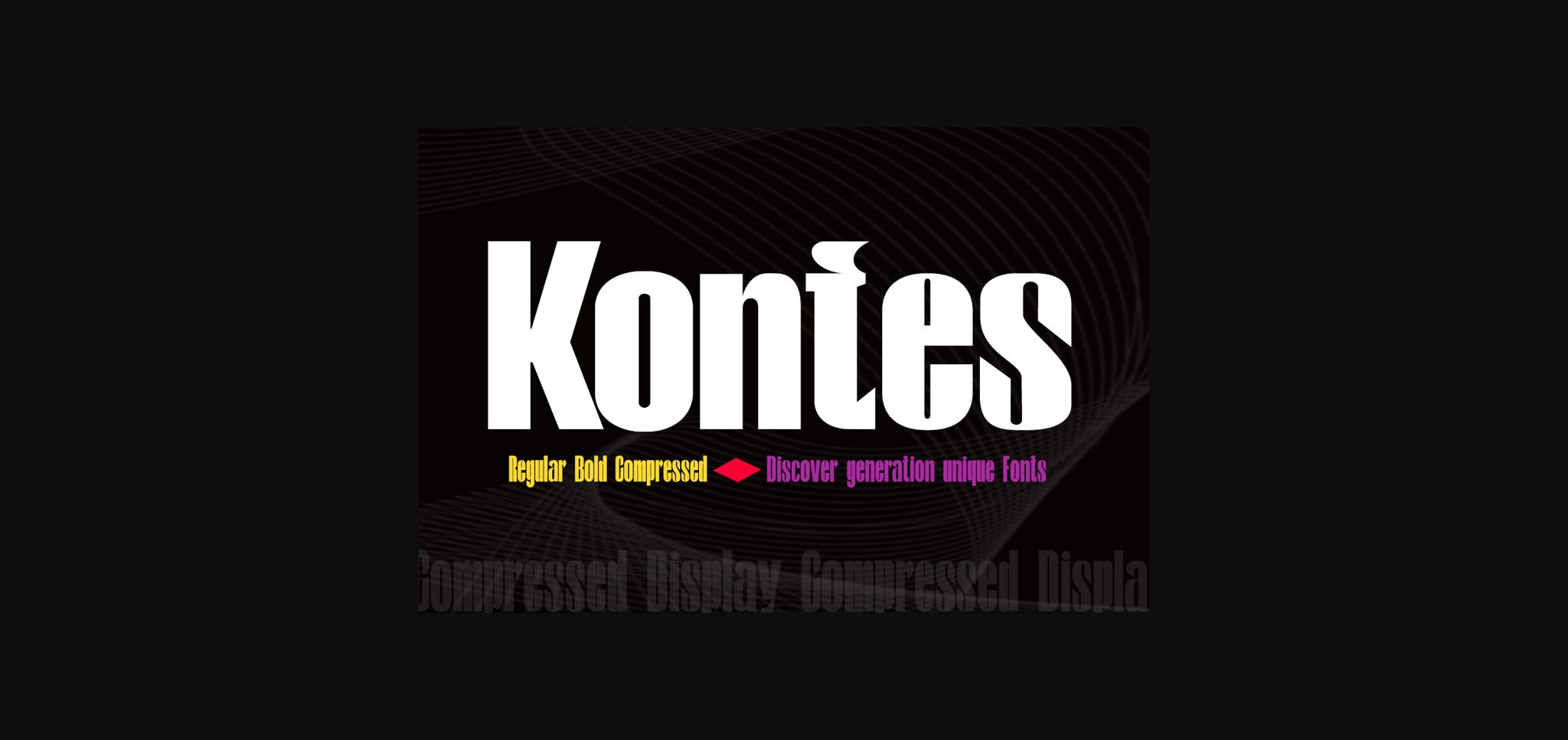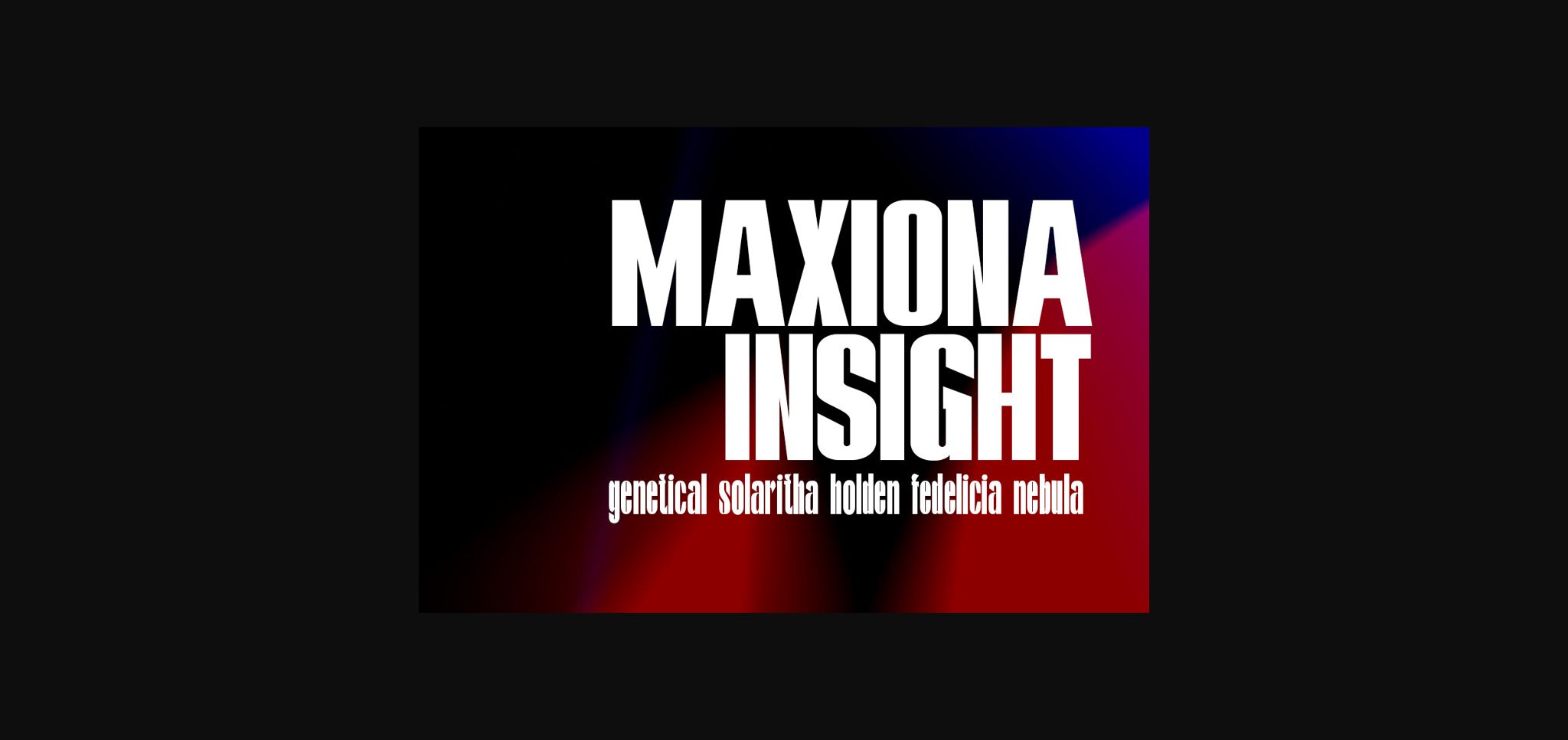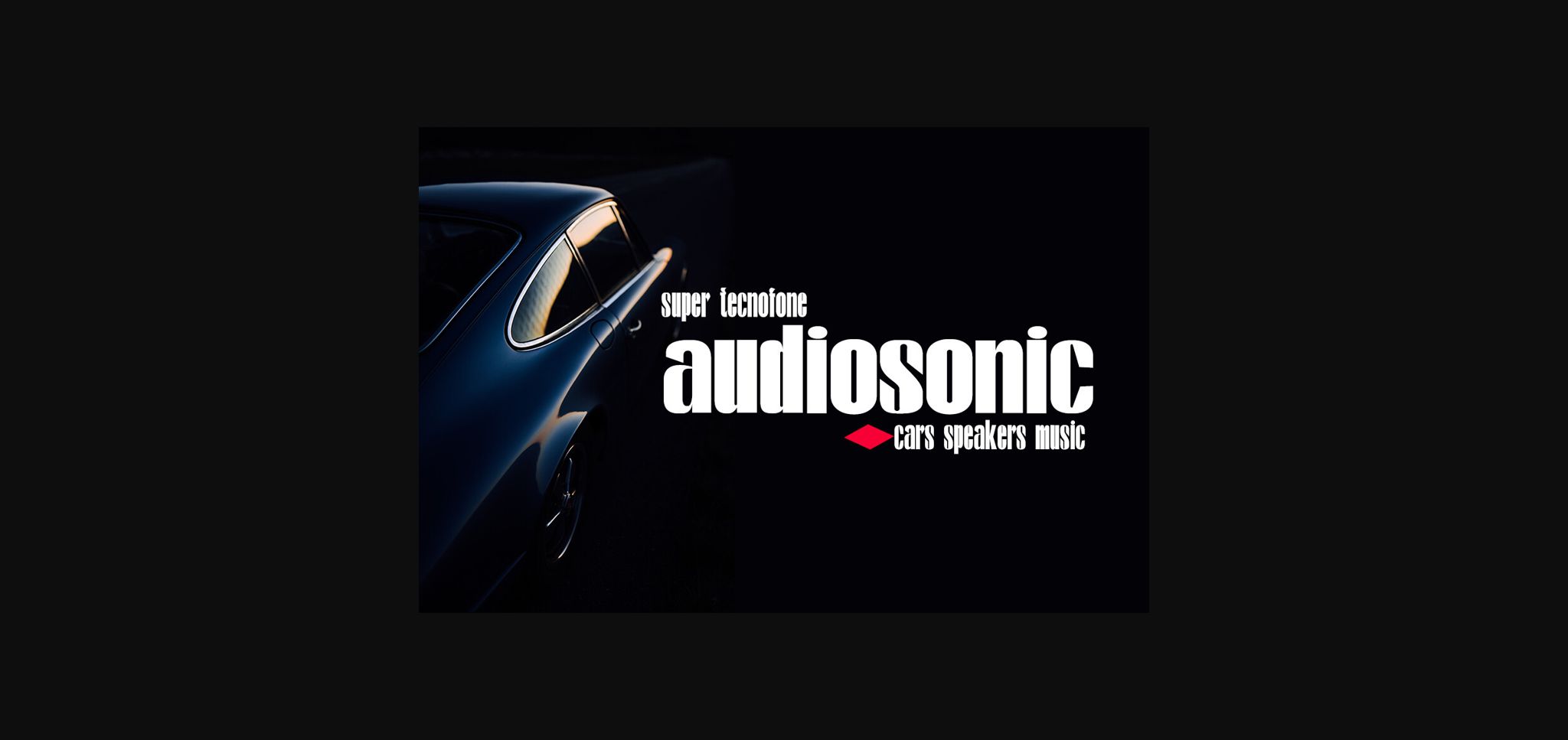
About Kontes Font
The Compressed Kontes font is packaged in a modern font that is unique, elegant, feminine, sensual, glamorous, simple, and very easy to read. The classic style is very suitable to be applied in various formal forms such as invitations, labels, menus, logos, fashion, makeup, stationery, letterpress, romantic novels, magazines, books, greeting/wedding cards, packaging, and labels.